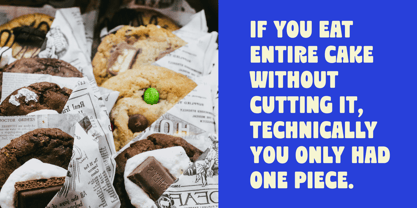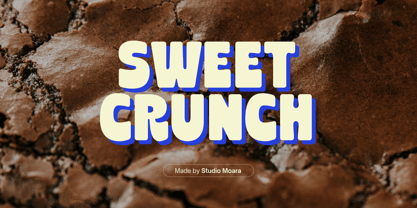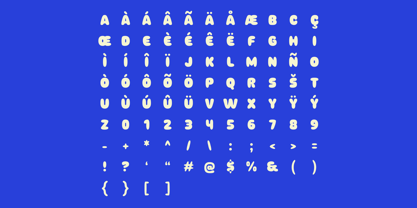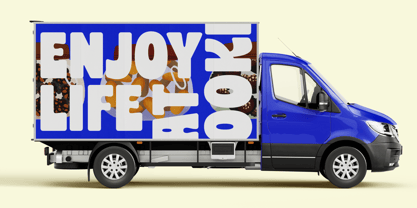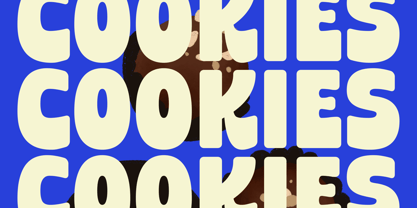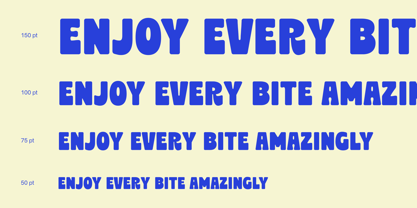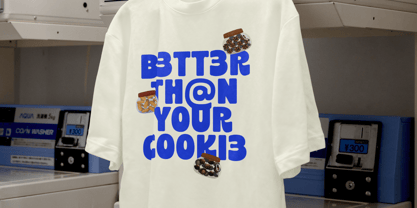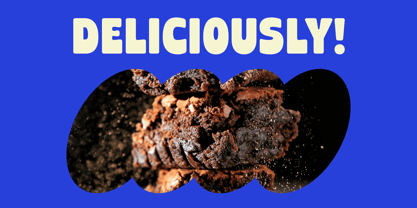
Sweet Crunch
von Coasta
Die Schriftfamilie Sweet Crunch wurde von Panca Ahmadi Hasan entworfen und von Coasta veröffentlicht. Sweet Crunch enthält 1 Stile.
Indulge your creative sweet tooth with Sweet Crunch, our playful display font that adds a delightful touch to any project. The whimsical characters and charming curves make this font perfect for playful designs, whimsical branding, and eye-catching headlines. Sweet Crunch brings a lighthearted and fun vibe to your creations, making it ideal for everything from packaging to social media graphics. Give your designs a burst of personality with the irresistible charm of Sweet Crunch – the ultimate choice for a playful typographic experience !